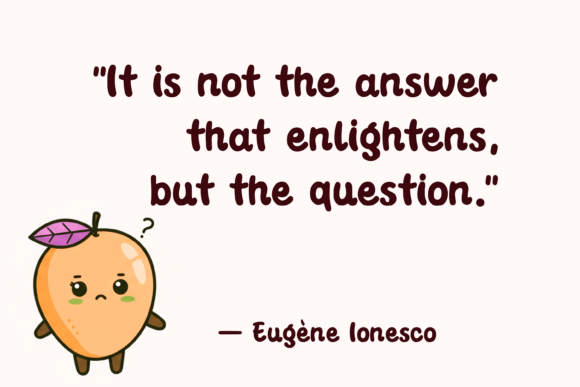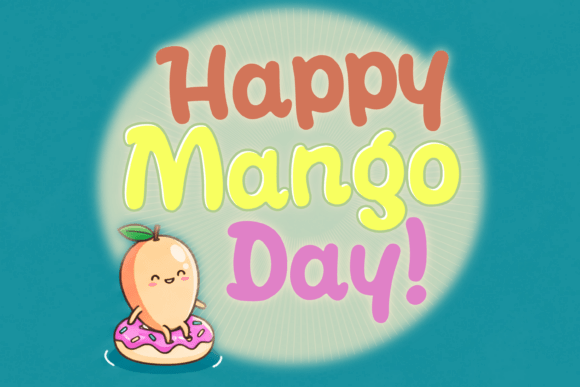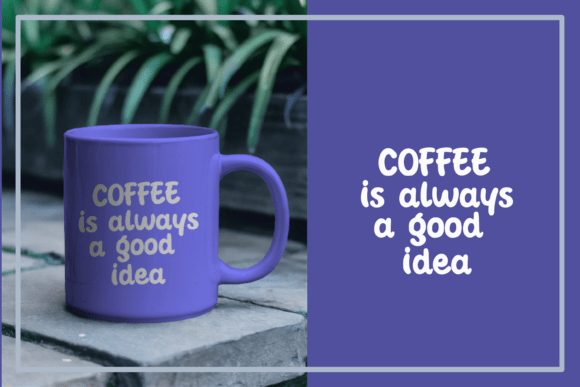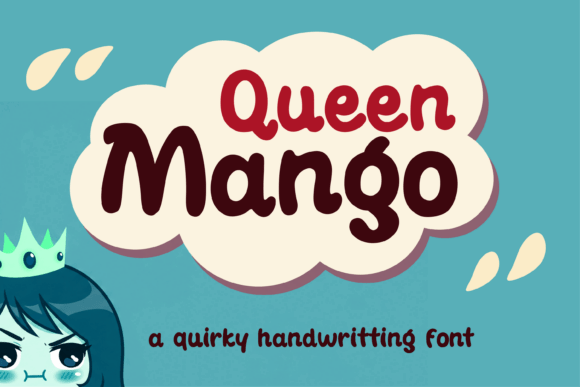
Introduction to Queen Mango Font
Queen Mango – A Quirky Handwriting Font Bring a burst of personality to your creative projects with Queen Mango, a playful and quirky handwritten font that’s full of charm and character.
πŸ‹βœ¨ Each letter is crafted with a cheerful bounce and smooth rounded edges, making it perfect for cute logos, fun packaging, kids’ books, stickers, social media posts, and greeting cards The bold and friendly design gives your words a lively and approachable feel.
Why Choose Queen Mango Font?
Queen Mango Font offers exceptional quality and versatility, making it a valuable addition to your design toolkit. Whether you’re creating for personal projects or commercial use, Queen Mango Font delivers professional results.